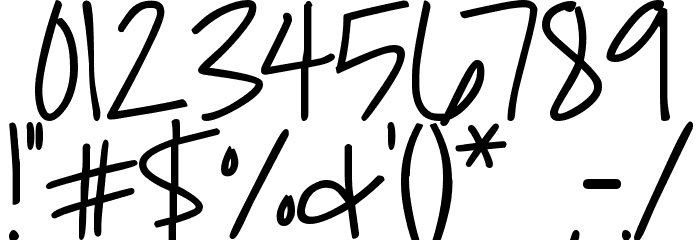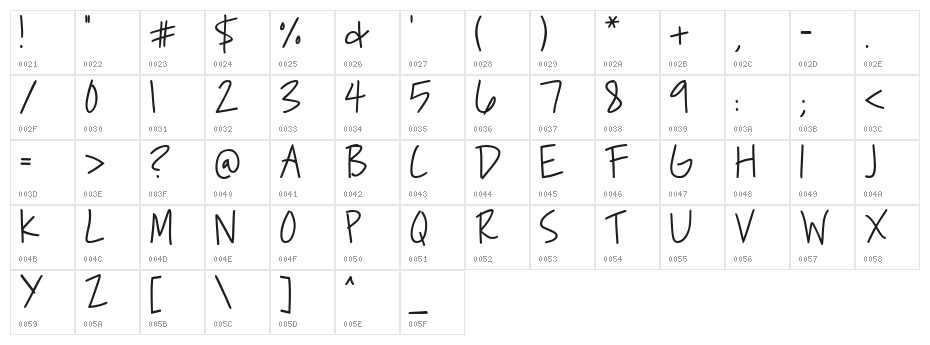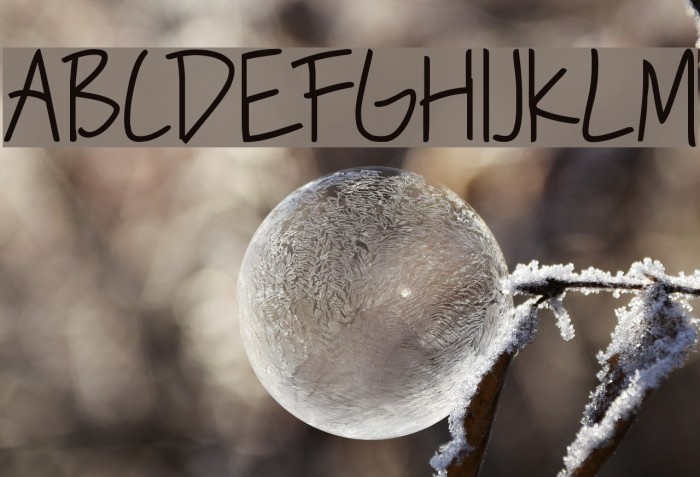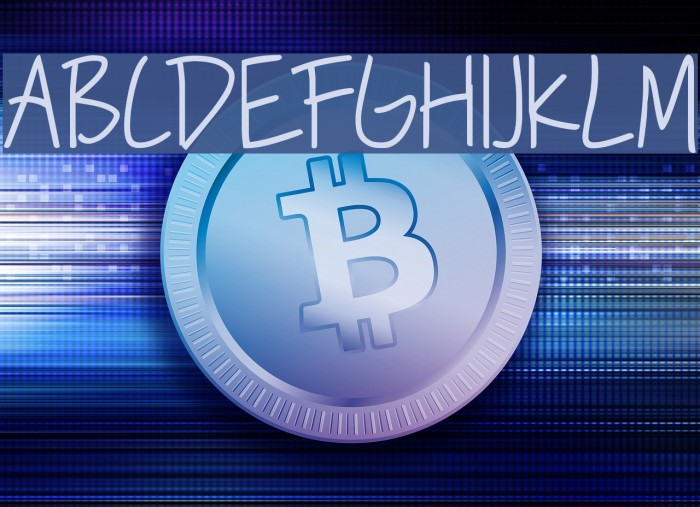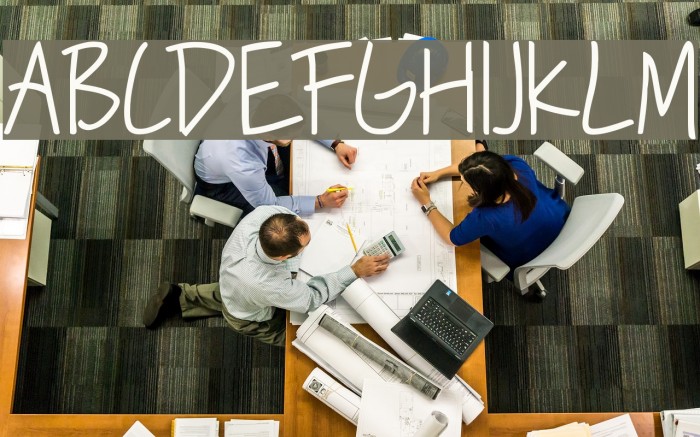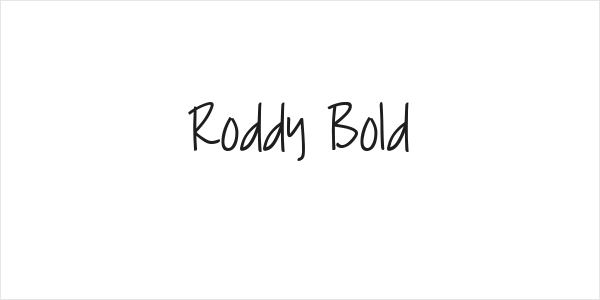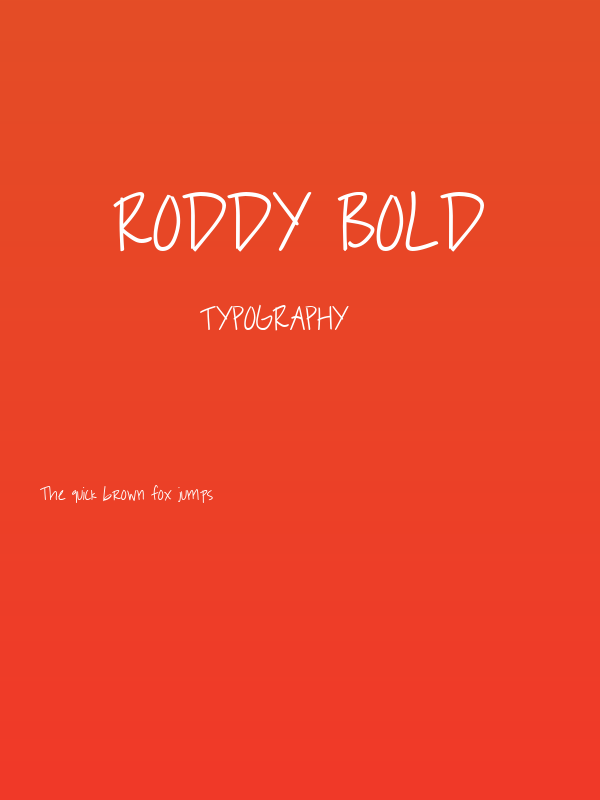
Roddy Bold Font
Roddy Bold Description
This font features a playful and casual handwritten style, characterized by its tall, narrow letters and slightly irregular strokes. The uppercase and lowercase letters are consistent in their informal appearance, giving off a relaxed and approachable vibe. The numerals and special characters maintain this style, ensuring a cohesive look across all text. The strokes are uniform in thickness, contributing to a clean and modern aesthetic. This font is ideal for projects that require a personal touch, such as greeting cards, invitations, or informal branding materials.
| Overall Style | Casual, Modern |
| Use Case | Headlines, Informal text, Personal projects |
| Proposed Projects | Ideal for greeting cards, invitations, informal branding, and personal projects. |